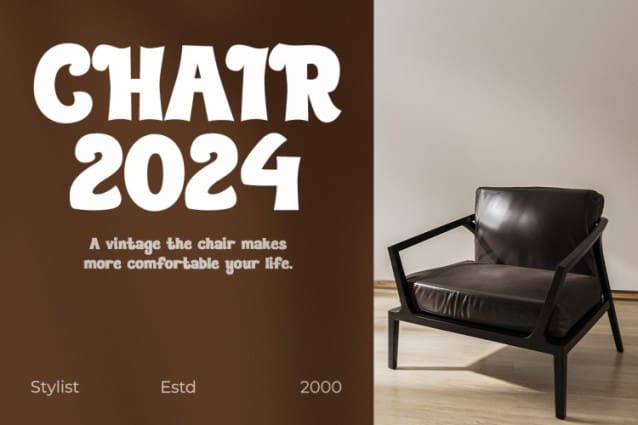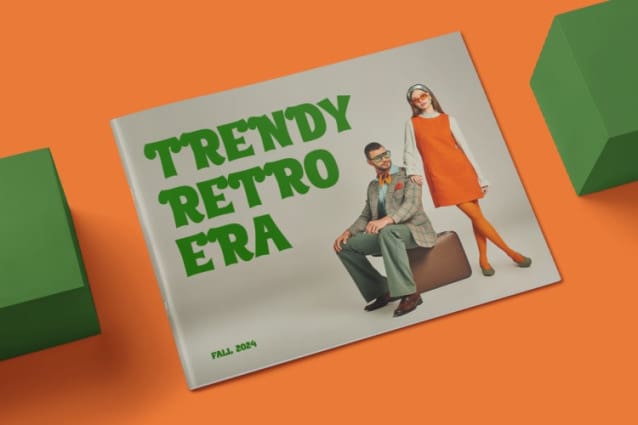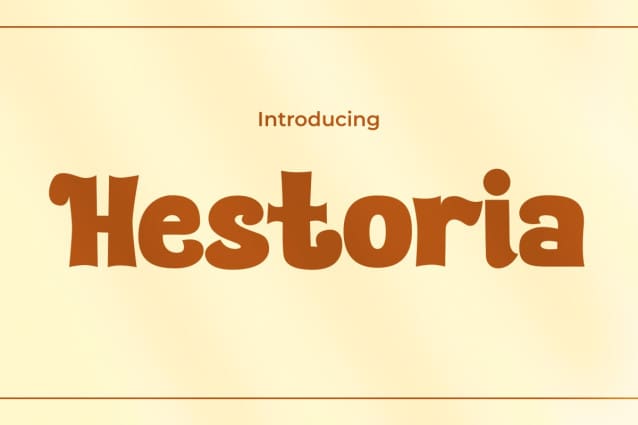
Hestoria Vintage Font
Hestoria Vintage Font, a timeless font designed to evoke the nostalgia of eras past. With its retro vintage classic theme, Hestoria Vintage adds a touch of elegance and sophistication to any project. Each letter is meticulously crafted to reflect the charm and style of vintage typography, perfect for bringing a sense of refinement to your designs.
Whether you’re creating invitations, branding materials, or vintage-inspired posters, Hestoria offers versatility and character to elevate your work. Transport your audience to a bygone era with Hestoria’s distinctive aesthetic, where every curve and stroke tells a story of timeless beauty and elegance. Unlock the essence of nostalgia and infuse your projects with the classic allure of HestoriaVintage font.